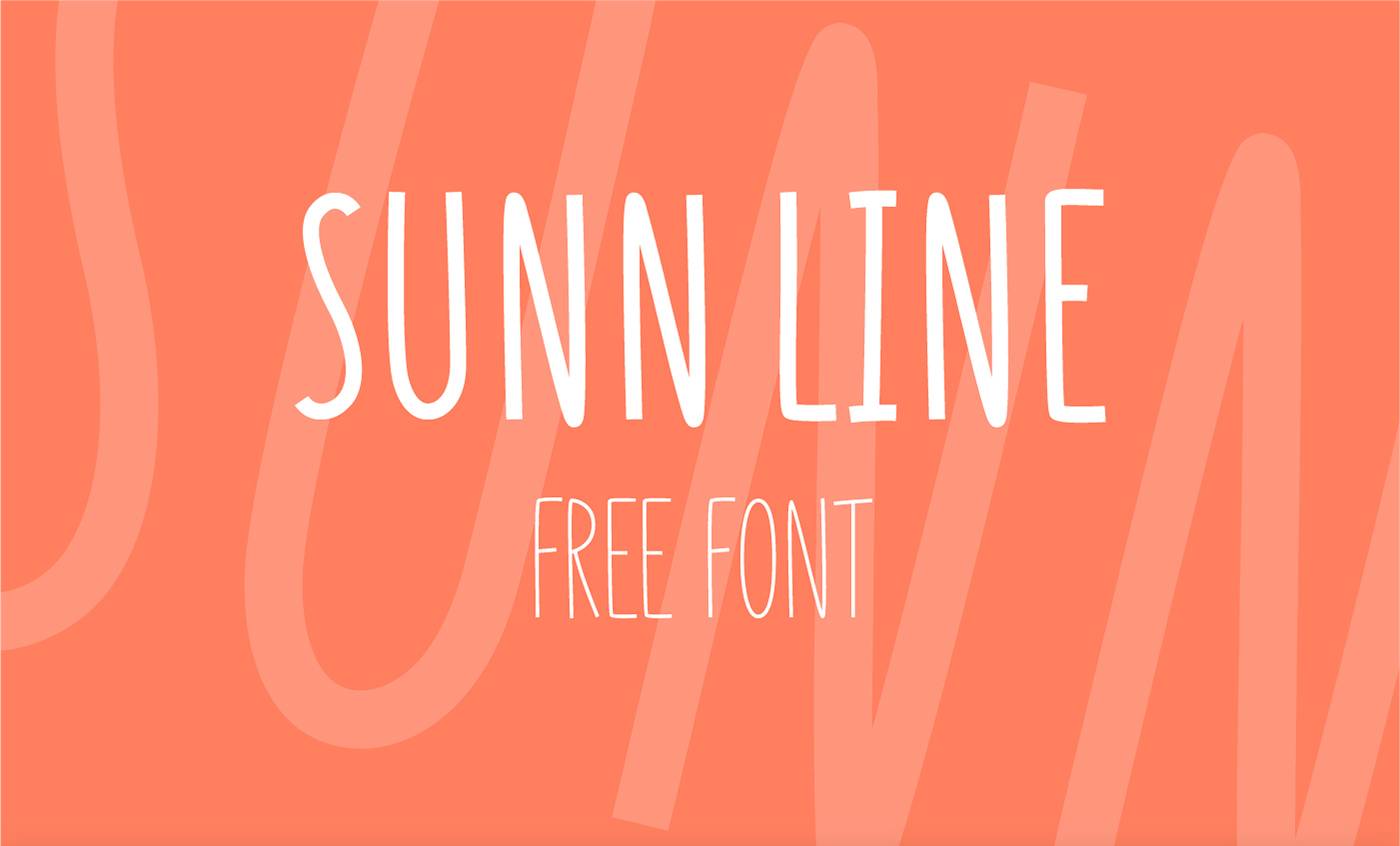
Sunn Line is a tall and narrow sans serif typeface with a playful, hand-drawn feel. Its thin, consistent strokes and slightly irregular letter shapes give it a casual yet distinctive personality, making it perfect for creative headlines, signage, and informal branding. This font works especially well where a light, airy, and approachable style is desired.
Sunn Line Typeface
About Sunn Line Typeface